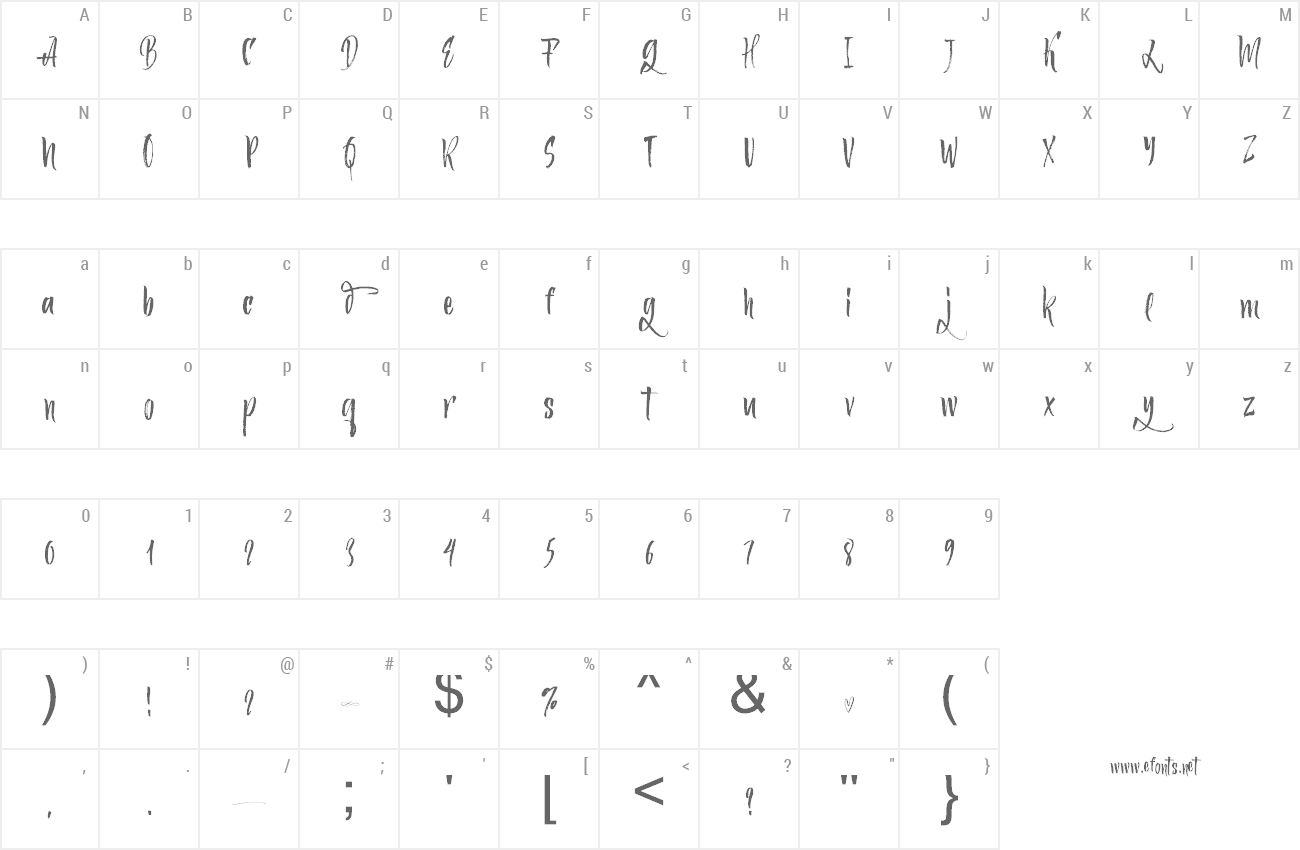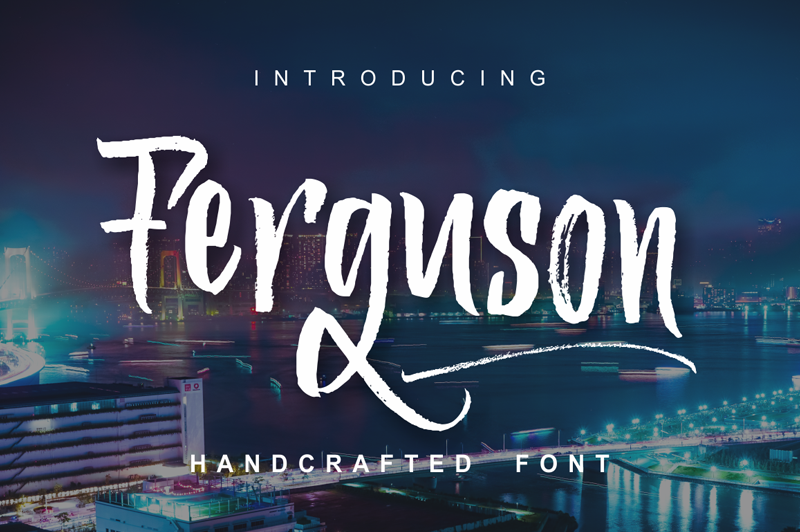
Ferguson Brush is unique textured brush font, contemporary approach to design, handmade natural with an irregular baseline. Suitable for use in title design. Such as apparel, invitations, books tittle, stationery design, quotes, branding, logos, greeting card, t-shirt, packaging design, poster and more. if you want to get a commercial license, it�s available at: https:www.fontbundles.net/jr-letter/377108-ferguson |